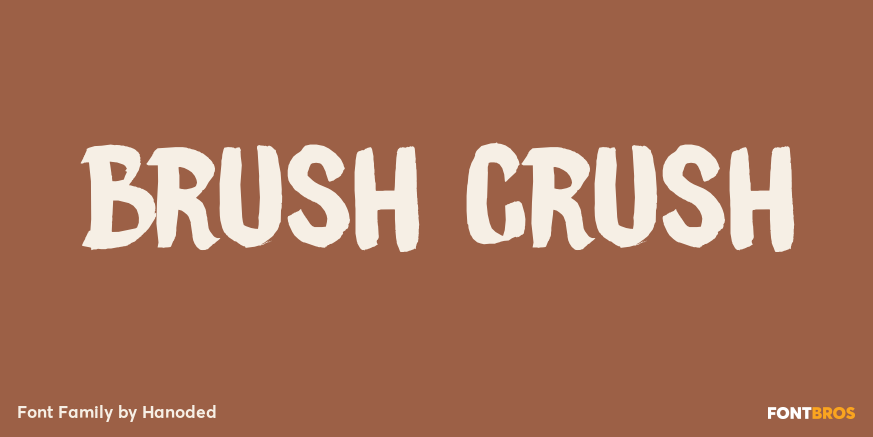
About Brush Crush
I bought a few new pencils and I tried them out using Chinese ink and quality French watercolor paper. The result is Brush Crush – a very nice brush font. Brush Crush would look perfect on packaging, book covers, posters and headlines and comes with alternates…